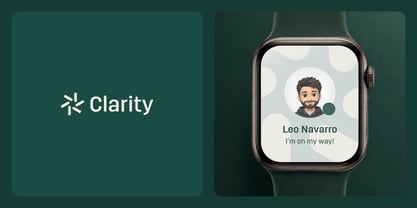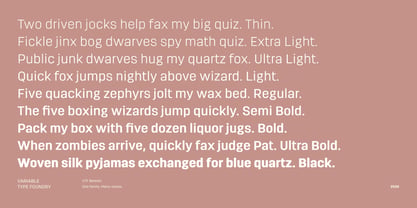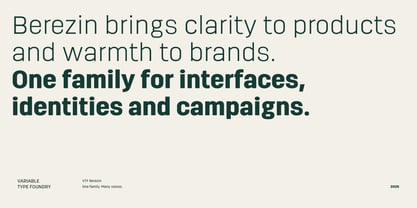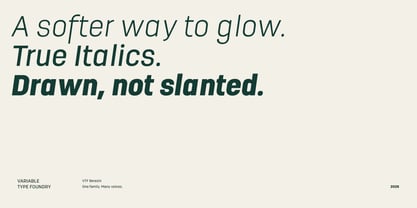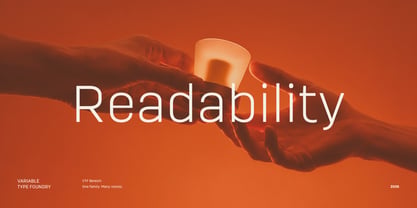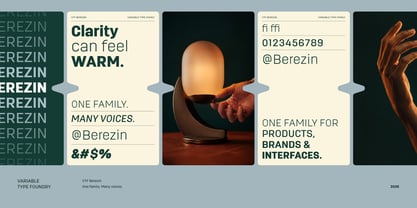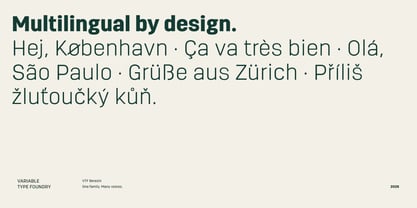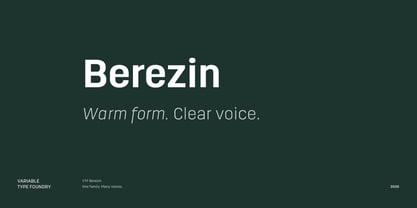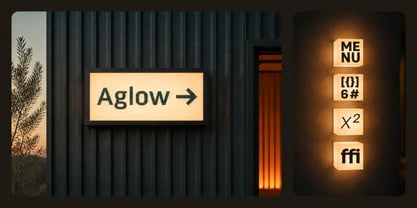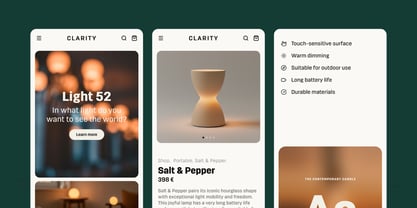
VTF Berezin
by Variable Type Foundry
The VTF Berezin Font Family was designed by Lole Román and published by Variable Type Foundry. VTF Berezin contains 19 styles and family package options.
VTF Berezin is a warm sans serif for user interfaces, apps and digital products. Across 19 styles with true italics, it brings clear hierarchy and a friendly contemporary voice to product interfaces, navigation and brand systems. Its direct shapes and even rhythm keep information easy to scan, while softly resolved details prevent the family from feeling anonymous. The result is a practical voice that can move from interface labels and product copy to headlines, packaging, campaigns and wayfinding without losing coherence.
Named in tribute to computer pioneer Evelyn Berezin, the family brings a human voice to technical and functional contexts.
The family contains nine weights, from Thin to Black, each with a matching true italic—18 static styles in total. The italics are drawn rather than mechanically slanted, giving emphasis a distinct texture while remaining unmistakably Berezin. Its variable design spans the full 100–900 weight range and moves between roman and italic, allowing precise control in responsive typographic systems.
Berezin also offers a broad working toolkit: carefully tuned kerning, standard and discretionary ligatures, fractions, case-sensitive forms, localized forms, superscripts and subscripts, and proportional or tabular figures. Its extensive Latin character set supports multilingual branding, editorial work and product interfaces.
Use Berezin wherever a system needs to feel useful without becoming cold: mobile apps, dashboards, wearable interfaces, signage, identity programmes, editorial layouts and campaigns. One family. Many voices.